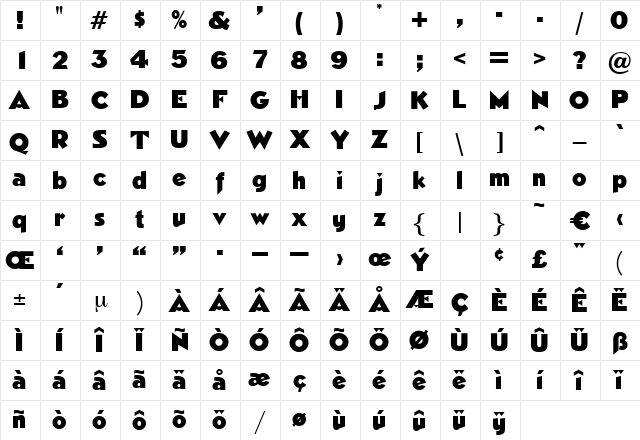
Nimrod Regular
Nimrod Family
Complete Nimrod Regular glyph index. Displaying only characters natively supported by Nimrod Regular font.
Design Context for Nimrod
Nimrod is a composed and adaptable typeface that performs quietly and consistently across a wide range of design contexts.
Pro Tip: Use Nimrod in both headline and body roles to test its range before committing to a single application.